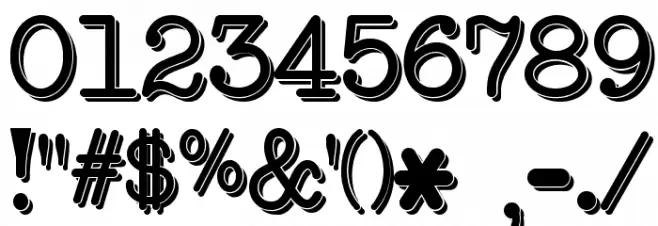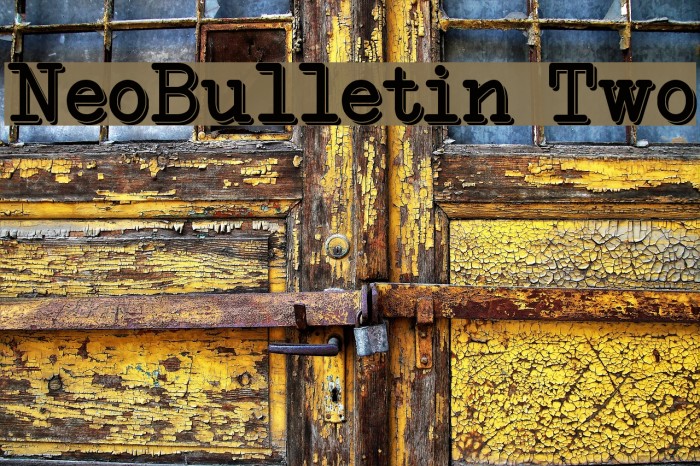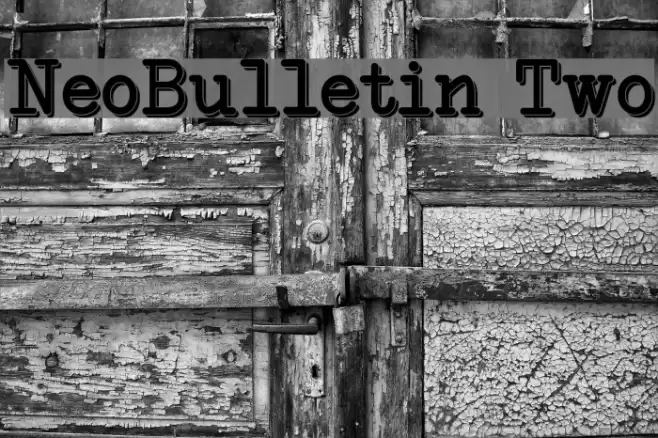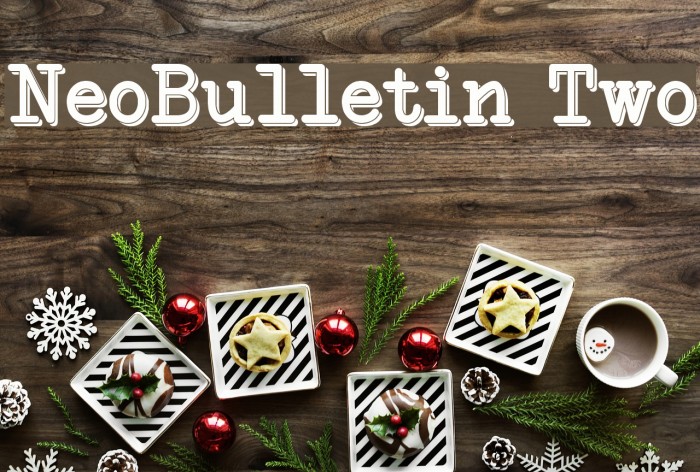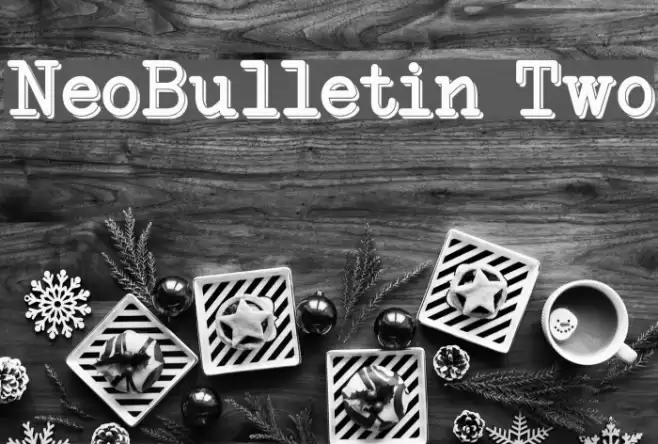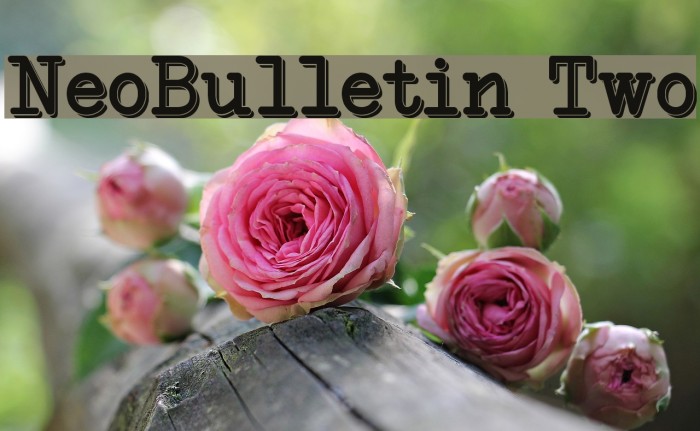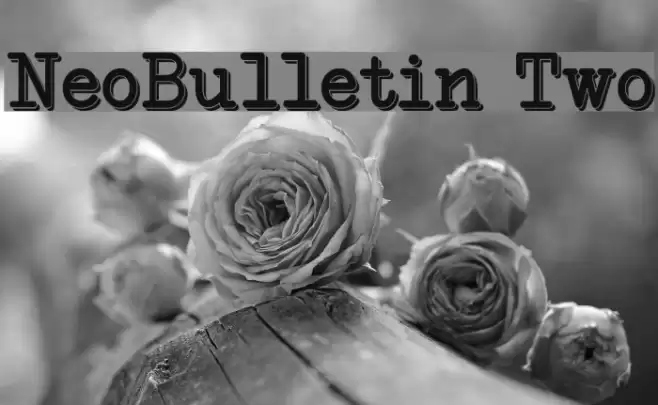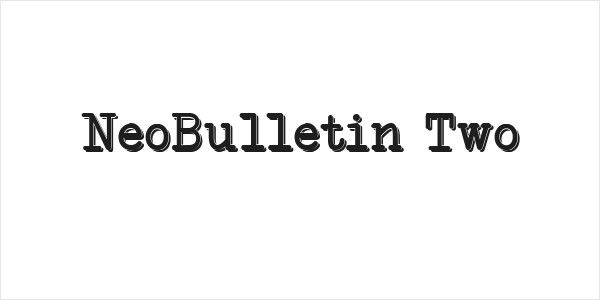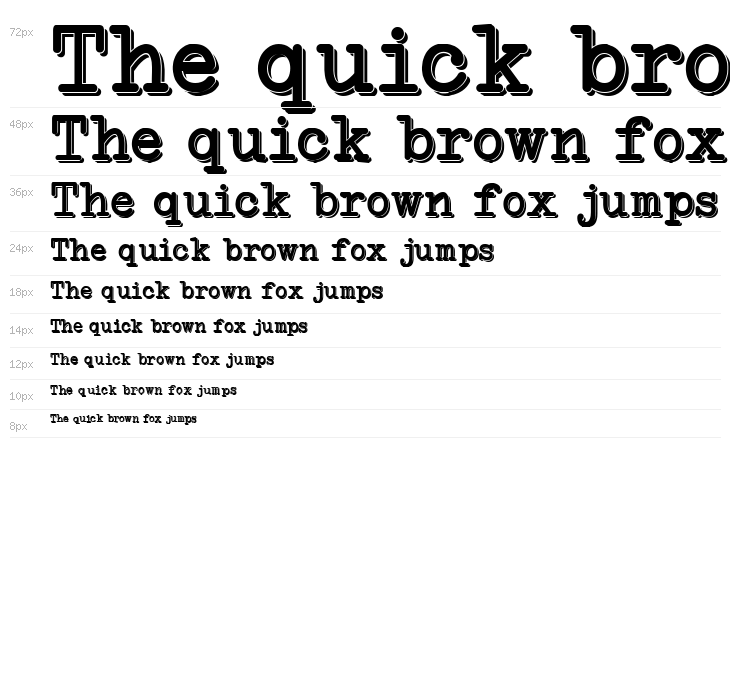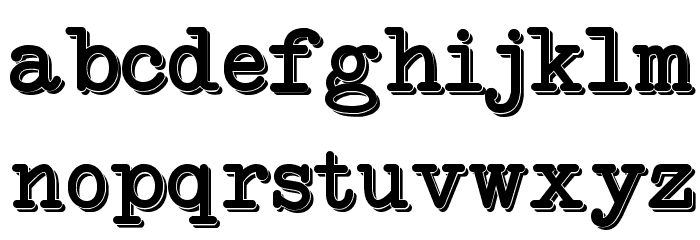
NeoBulletin Two Font
NeoBulletin Two Description
This font features a bold, slab serif style with a distinct shadow effect that gives it a three-dimensional appearance. The uppercase and lowercase letters are well-defined, with strong, thick lines and rounded edges that add a touch of softness to the overall boldness. The numerals are equally robust, maintaining the same shadowed effect, which enhances readability and visual interest. Special characters are included, matching the font's bold and shadowed style, making it versatile for various design needs. The font's unique combination of boldness and shadowing makes it stand out, suitable for eye-catching headlines and titles.